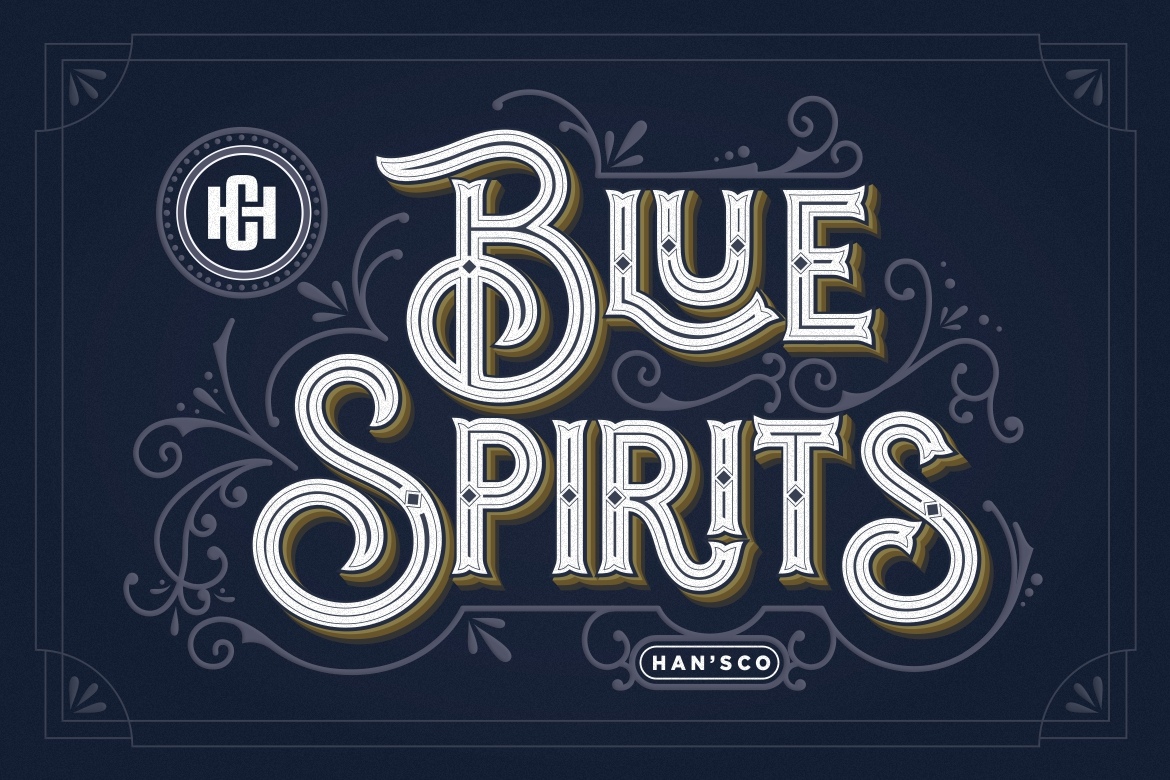
Blue Spirits Font
Blue Spirits Font is perfect for craft distillery branding, premium liquor bottle labels, sophisticated cocktail lounge signage, upscale bar menus, artisanal brewery graphics, whiskey tasting room materials, spirits manufacturing packaging, distilled beverage advertising, tavern and pub logos, and alcohol industry conference presentations. This refined typeface excels in applications where craft distillation expertise, premium spirit quality, and sophisticated drinking culture are fundamental brand messaging elements.
What makes Blue Spirits Font exciting is its masterful capture of the artisanal spirit-making tradition through elegant letterforms that evoke the smooth flow of premium distilled beverages and the refined atmosphere of quality drinking establishments. The font features fluid character construction with subtle organic curves that mirror the gentle movement of spirits in crystal decanters while maintaining the professional credibility essential for the alcohol industry. Its sophisticated presence makes it perfect for brands that celebrate the craft, heritage, and cultural significance of fine spirits and artisanal distillation.
The Blue Spirits Font family typically includes Regular and Bold weights, often accompanied by italic variations that enhance the flowing, liquid-inspired aesthetic essential for spirit branding applications. Many versions feature decorative alternates with enhanced craft styling, ornamental elements inspired by traditional distillery equipment, and special symbols related to brewing and distillation processes. Some collections include vintage-inspired variations and label-appropriate formatting that complete the authentic craft distillery aesthetic for comprehensive brand applications.
Whether you're developing brand identities for craft distilleries, creating marketing materials for premium spirit brands, or designing content that celebrates artisanal drinking culture and distillation craftsmanship, Blue Spirits Font Free Download provides the authentic craft character that resonates with connoisseurs who appreciate quality spirits and traditional distillation methods. Its refined presence makes it ideal for businesses focused on producing exceptional spirits through time-honored techniques and quality ingredients. The font's ability to convey both craftsmanship expertise and sophisticated drinking culture makes it particularly valuable for distilleries, premium bars, and spirits retailers seeking to attract discerning customers who value authentic craftsmanship, quality ingredients, and the cultural traditions surrounding fine spirits appreciation.